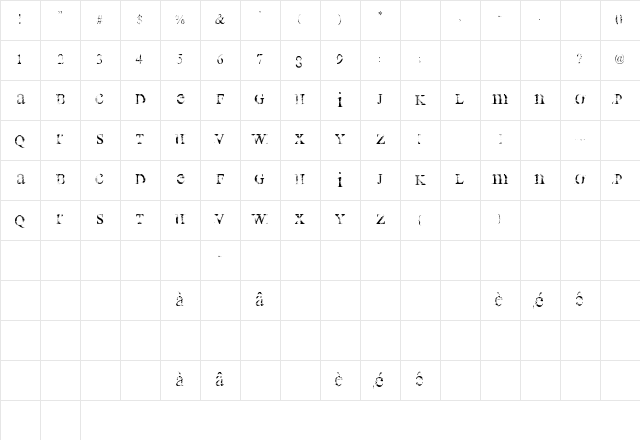
all used up Regular
all used up Family
Design Context for all used up
all used up is a composed and adaptable typeface that performs quietly and consistently across a wide range of design contexts.
Pro Tip: Use all used up in both headline and body roles to test its range before committing to a single application.